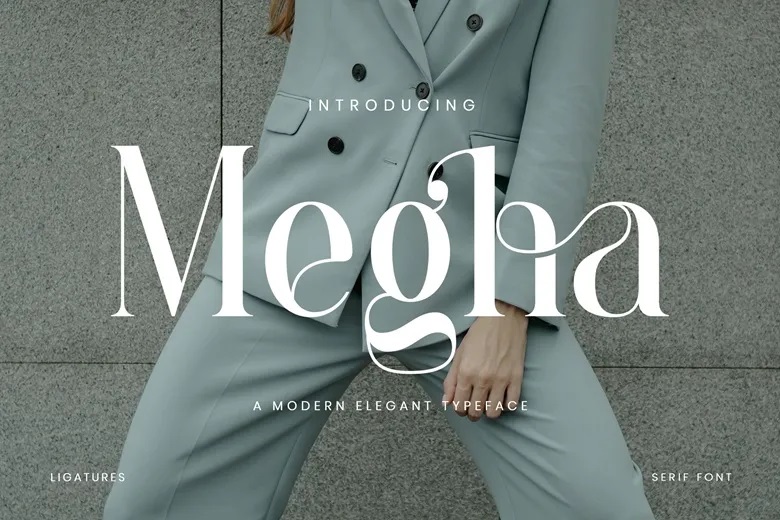
Megha Font
Megha is a serif font that combines classic style with a modern touch. The letters have smooth curves, fine ligatures, and gentle stroke contrasts, giving the font a polished and elegant appearance.
Megha’s expressive style brings creativity to any project and helps your typography stand out with confidence and elegance. It is a good option for designers who want a typeface that feels modern and timeless.
Megha Serif Font